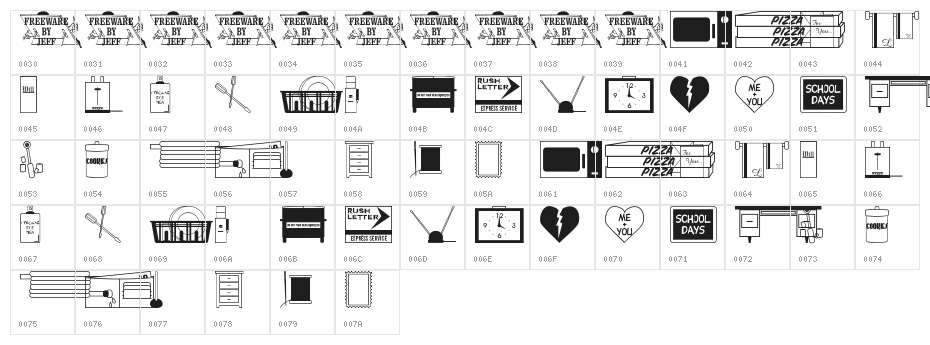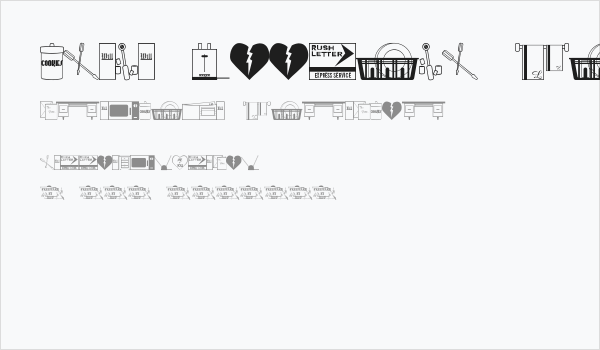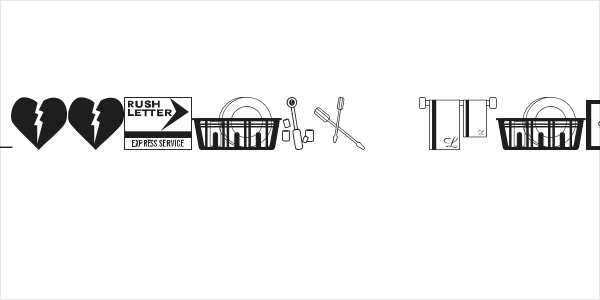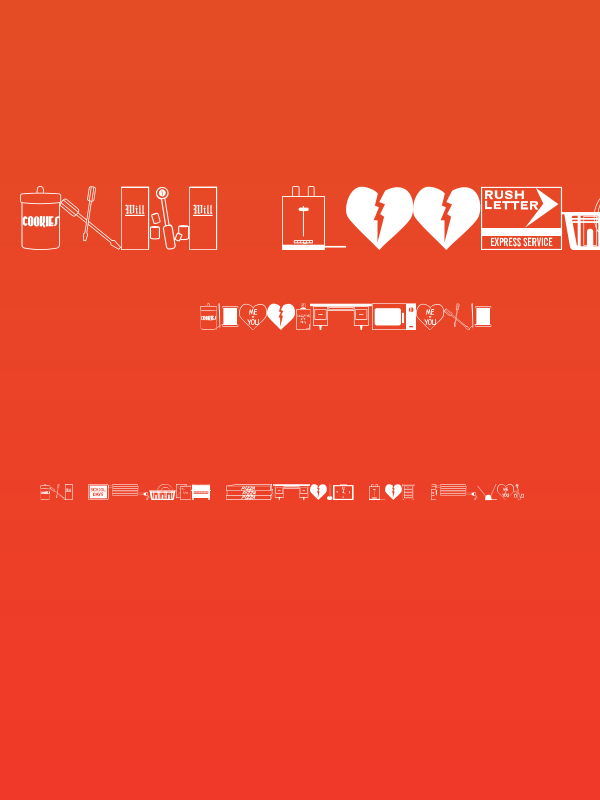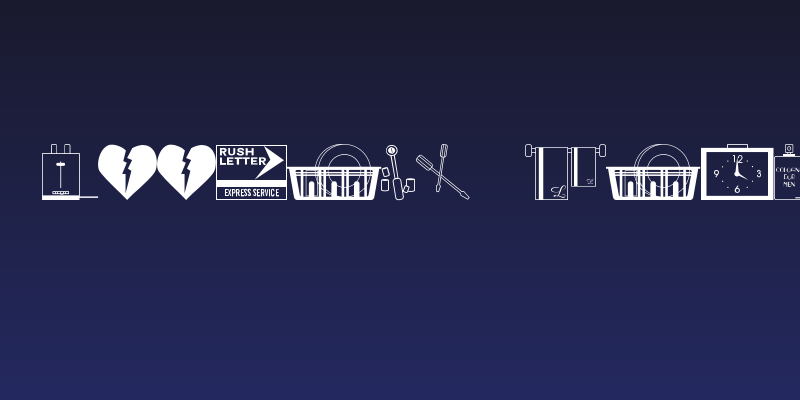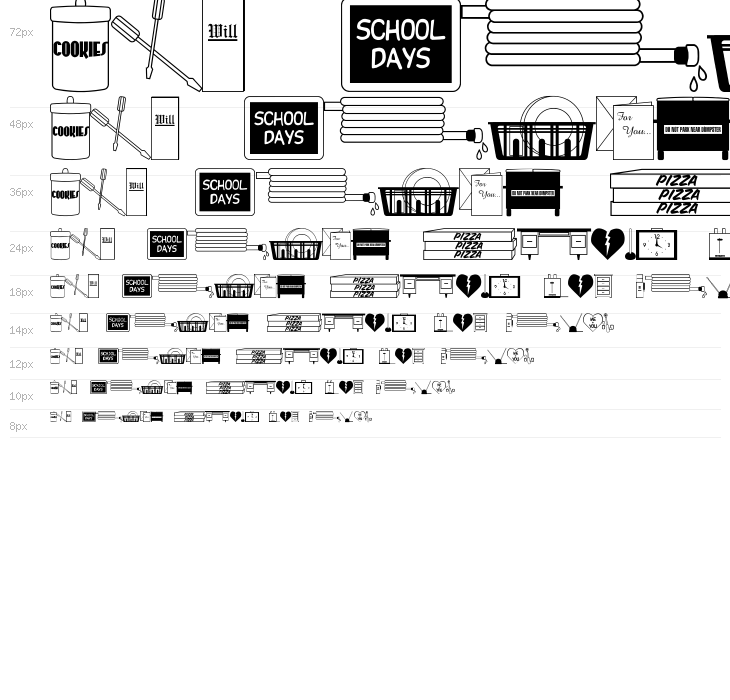
These Foolish Dings JL Font
These Foolish Dings JL Description
This is a whimsical and playful dingbat font featuring a variety of quirky and illustrative symbols. Each character is represented by a unique graphic, ranging from everyday objects like clocks and pizza boxes to more abstract designs. The style is reminiscent of clip art, with bold outlines and simple, cartoonish details. This font is ideal for adding a fun and creative touch to projects, offering a diverse range of symbols that can be used for decorative purposes. The characters are evenly spaced, ensuring clarity and readability despite their intricate designs.
| Use Case | Logos, Decorative elements, Creative projects |
| Proposed Projects | Ideal for creative projects such as scrapbooking, greeting cards, and playful graphic designs. |